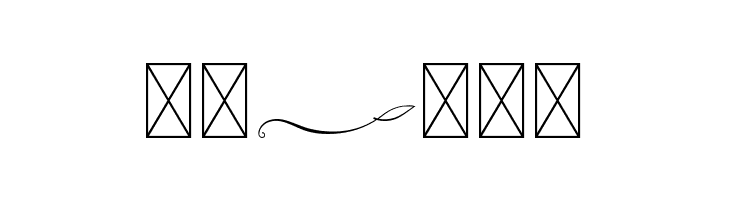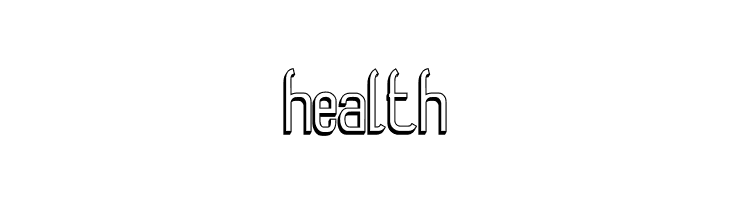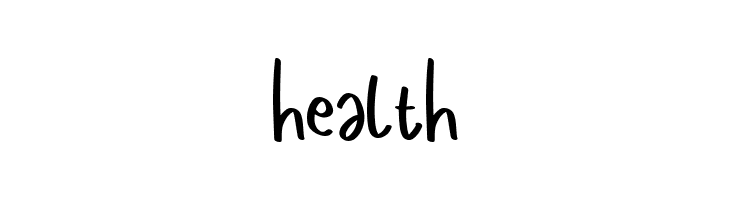
A bold, dynamic font with a modern, slanted style.
A bold, textured font with a rugged, industrial style.
A bold, dynamic font with a playful and energetic style.
Elegant swashes with smooth curves for decorative use.
An elegant, decorative font with intricate swirls and flourishes.
A modern, shadowed font with geometric outlines and a three-dimensional effect.
A playful handwritten font with a casual and friendly style.
A playful and casual handwritten font with smooth curves and bold strokes.
A playful, handwritten-style font with rounded edges and a friendly appearance.
A bold, dynamic script font with fluid, cursive strokes and artistic flair.